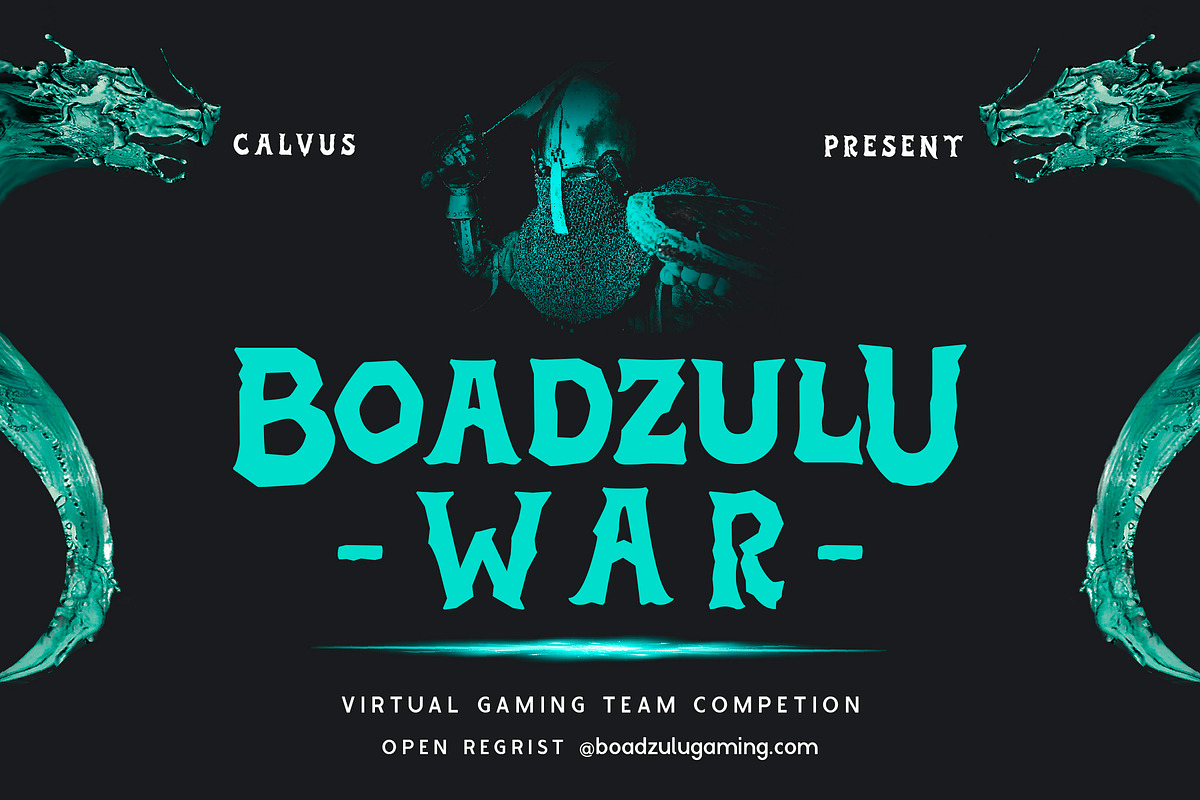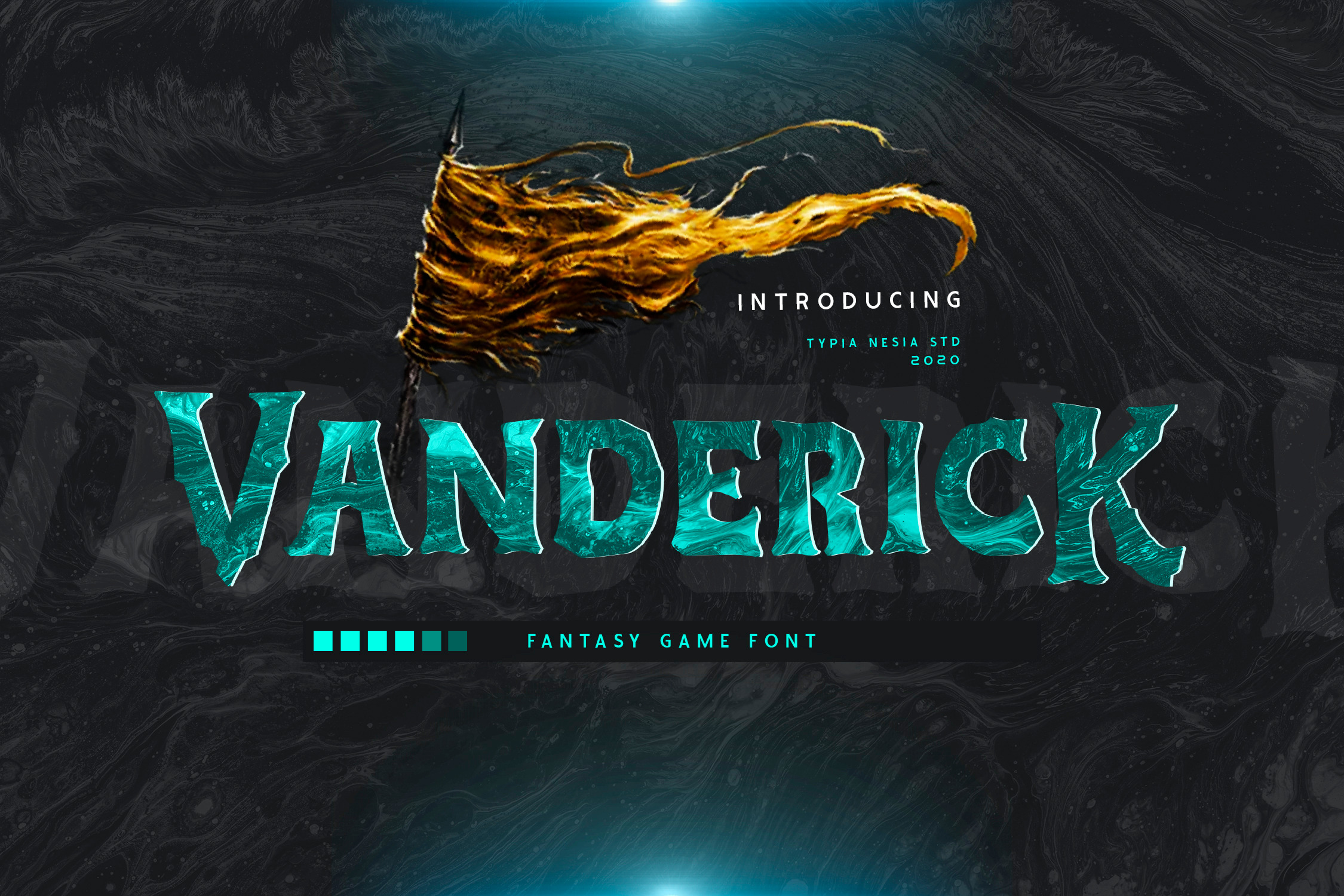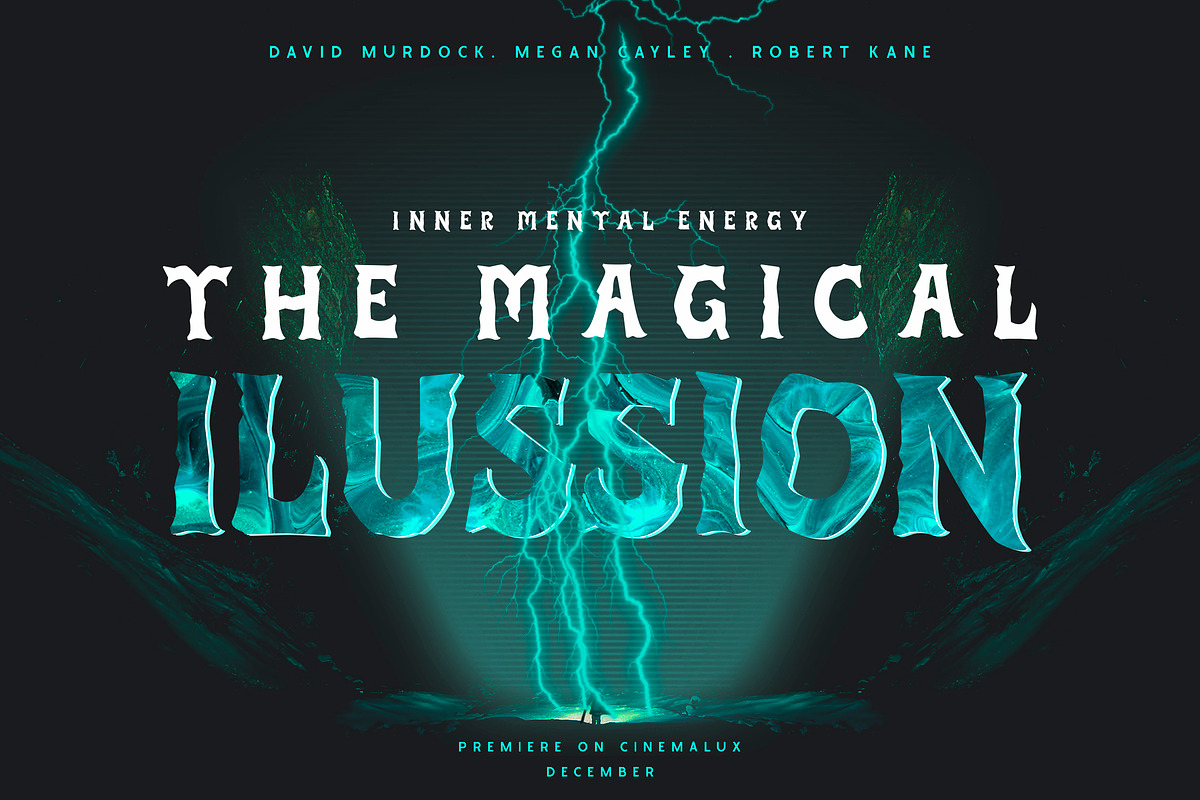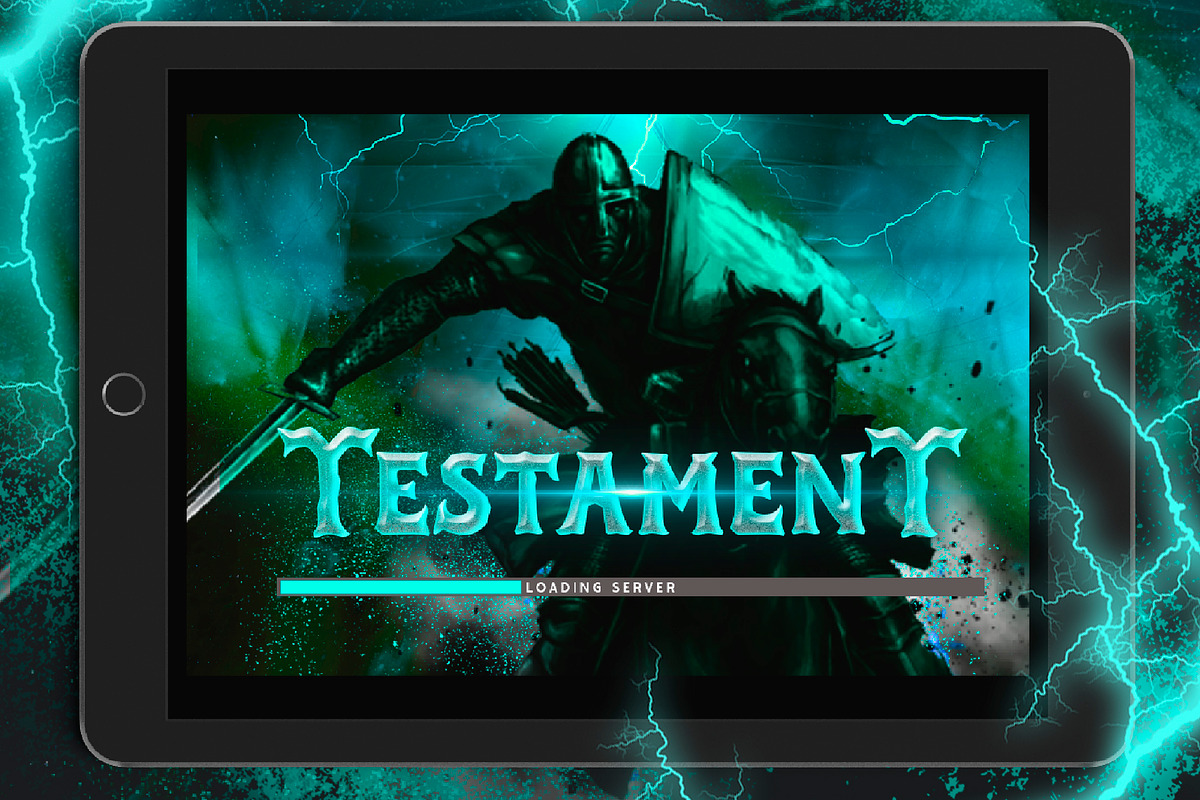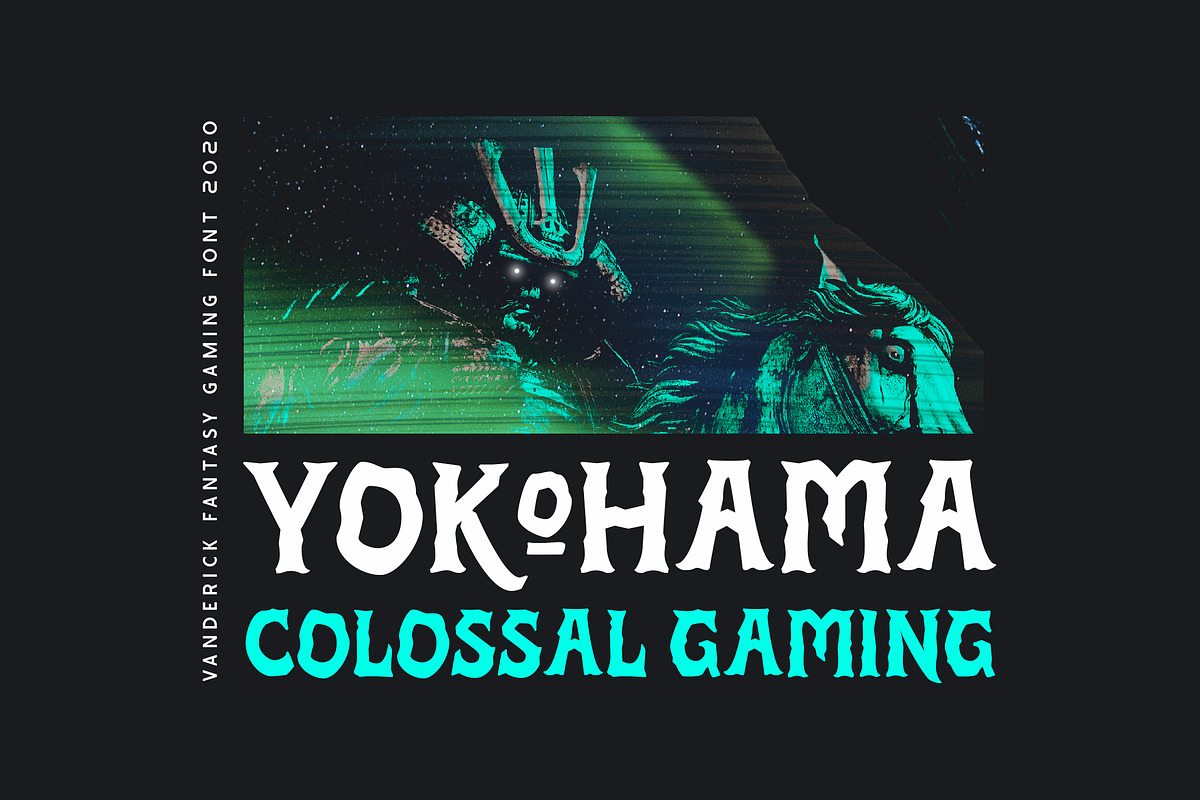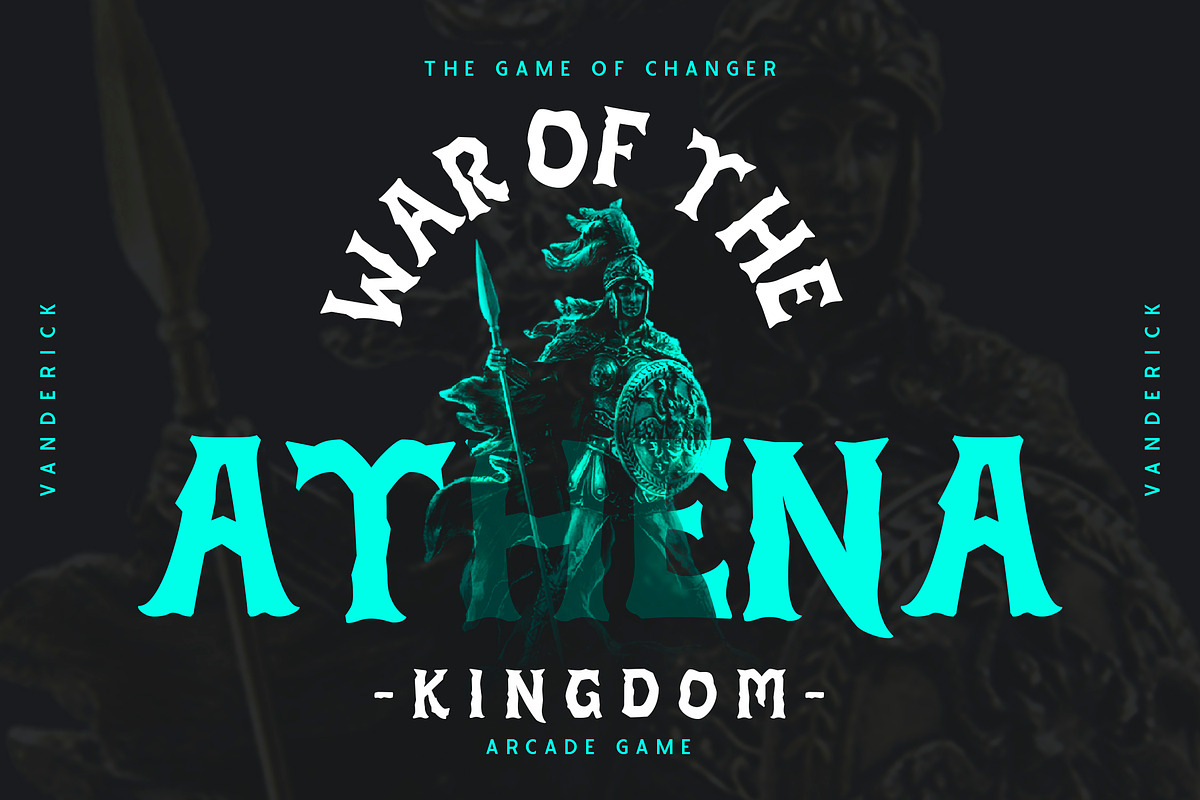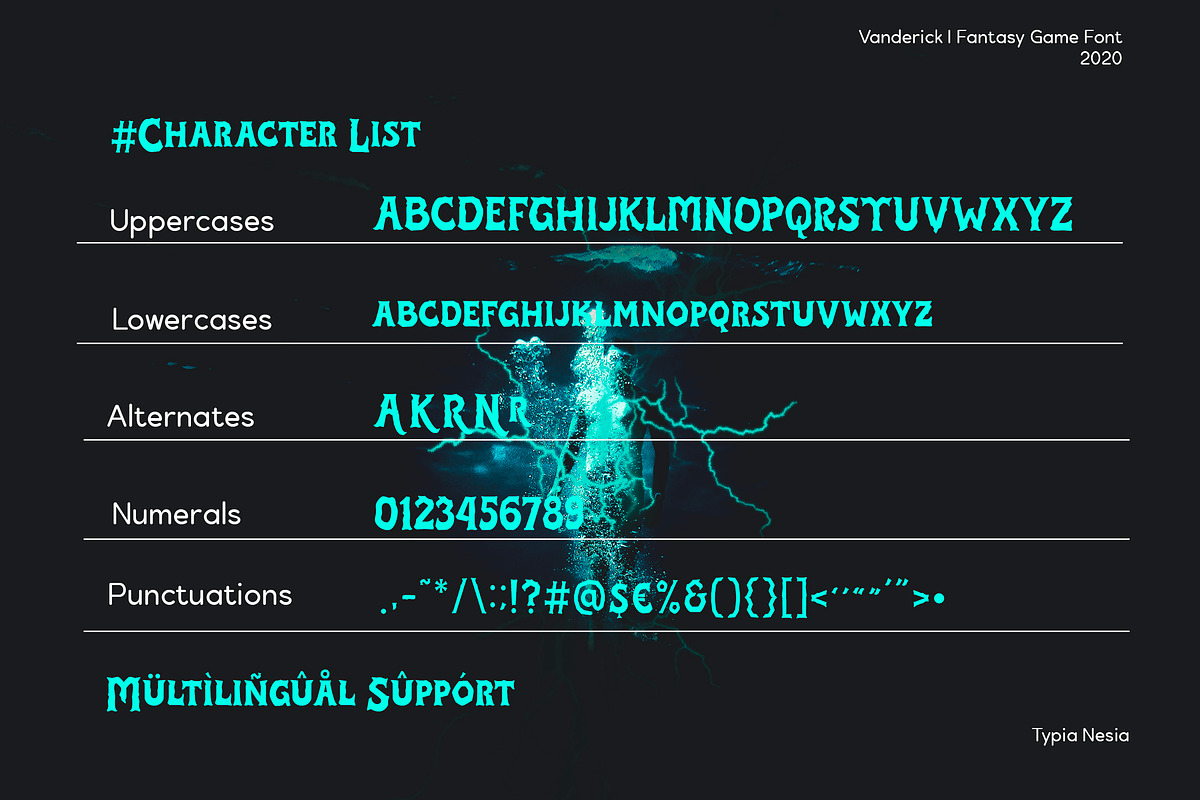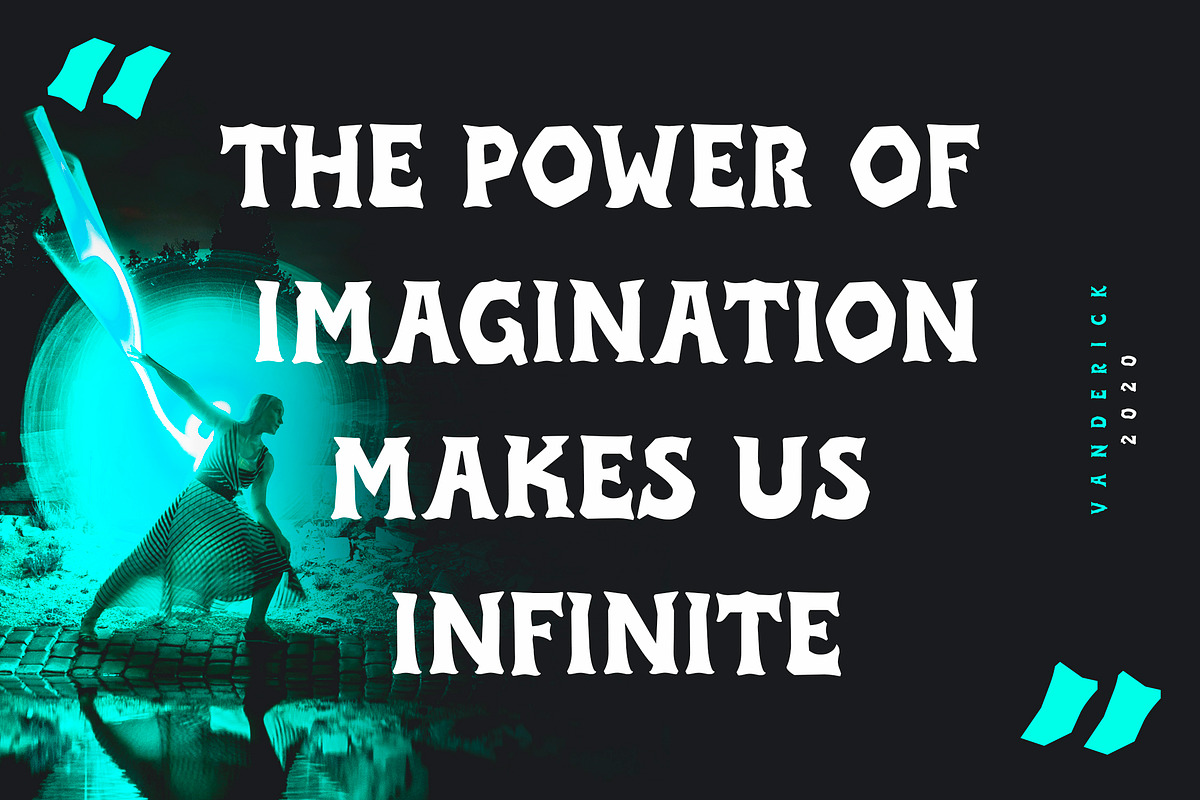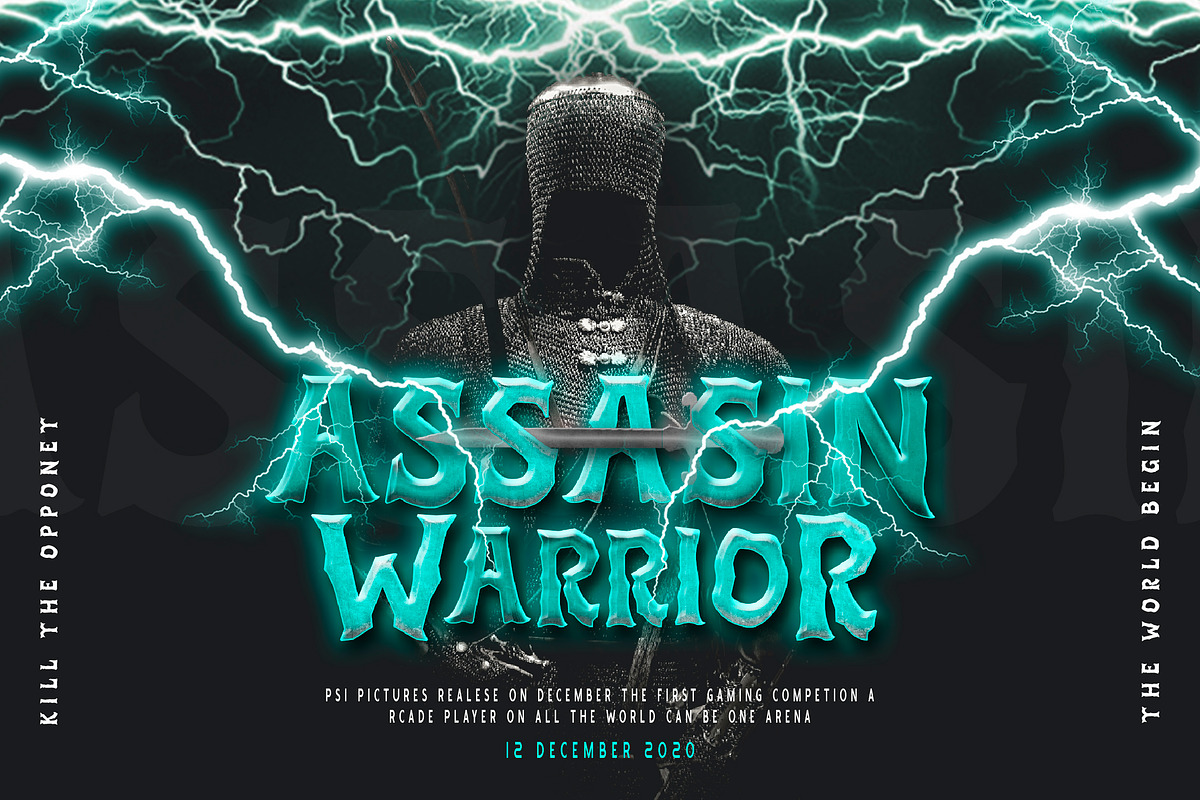
Vanderick - Fantasy Game Font
Vanderick Fantasy Game Display Font - Pirate Horror Novel Font
Suitable for any design needs : logo, branding, modern advertising design, halloween, gothic design, apparel, hardcore music, fantasy animation or movie, logos, adventure poster quote, game industry, music / band, book / cover Title, editorial design, website / blog, card, custom mug, pillow, t-shirts, and any gothic hand-lettered needs.